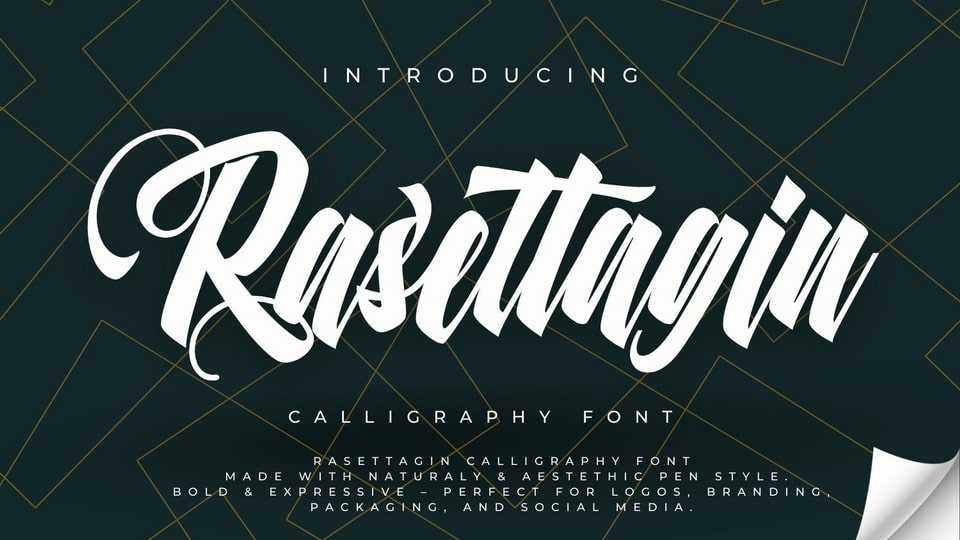
Download Rasettagin font, a handcrafted brush calligraphy typeface designed for brands that demand attention. Transform your brand’s identity with the perfect blend of artistry and attitude.